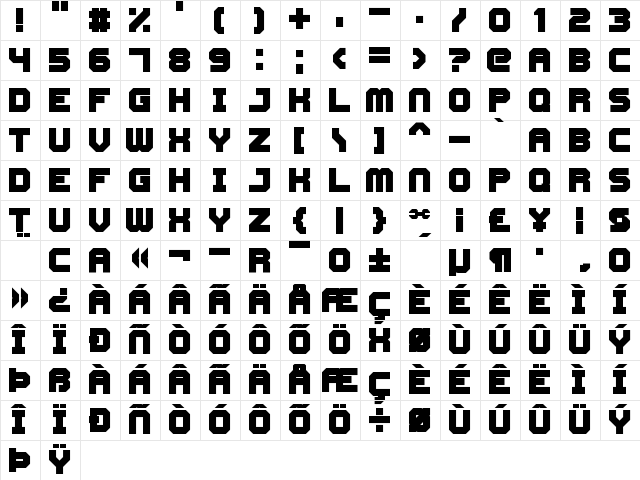
Cyberspace Raceway Back Regular
Designer: GameDevDan
Design Context for Cyberspace Raceway Back
Cyberspace Raceway Back has a distinctly futuristic character, with geometric precision and clean angles that feel at home in technology, gaming, and sci-fi contexts.